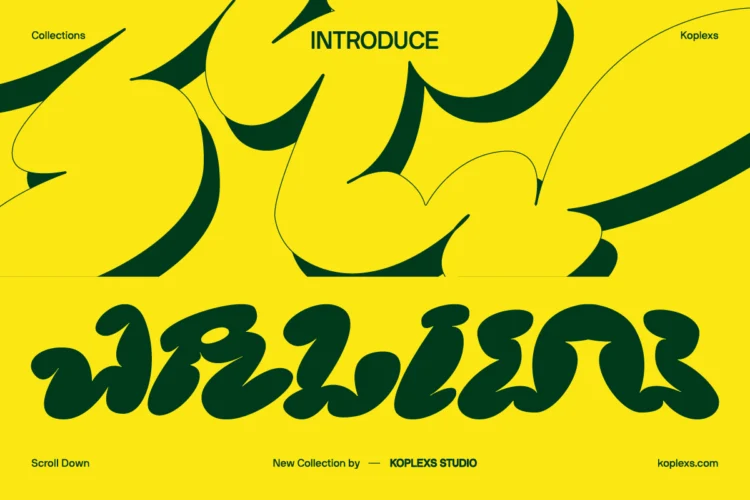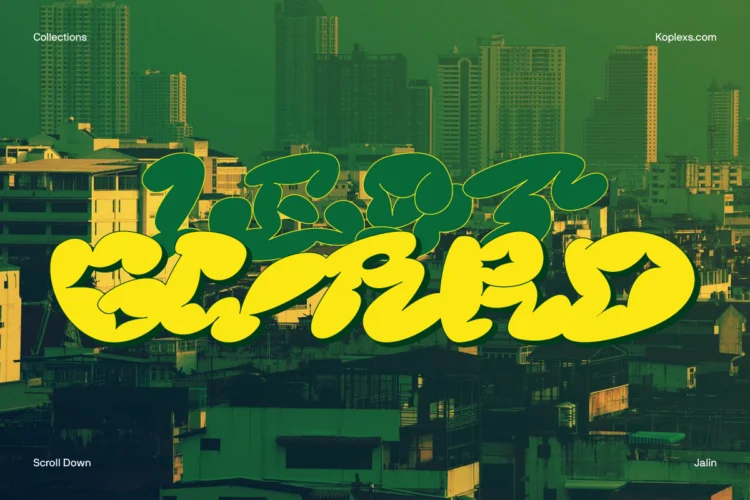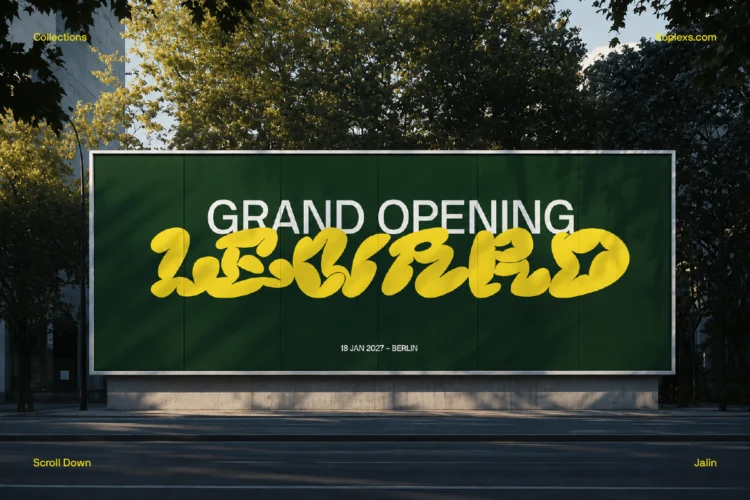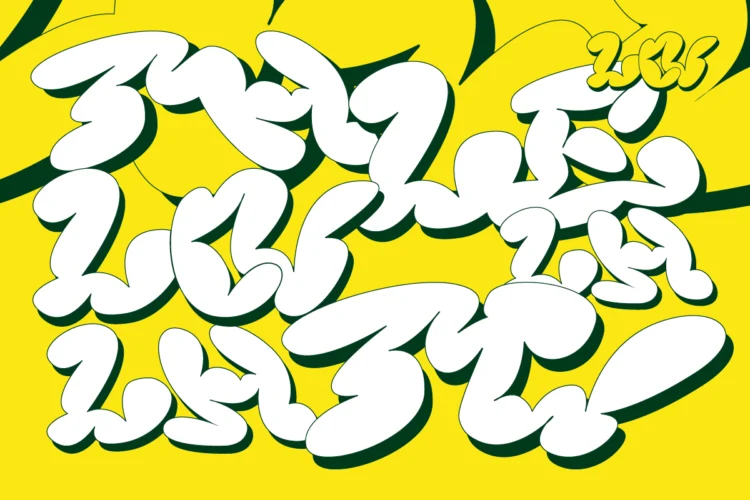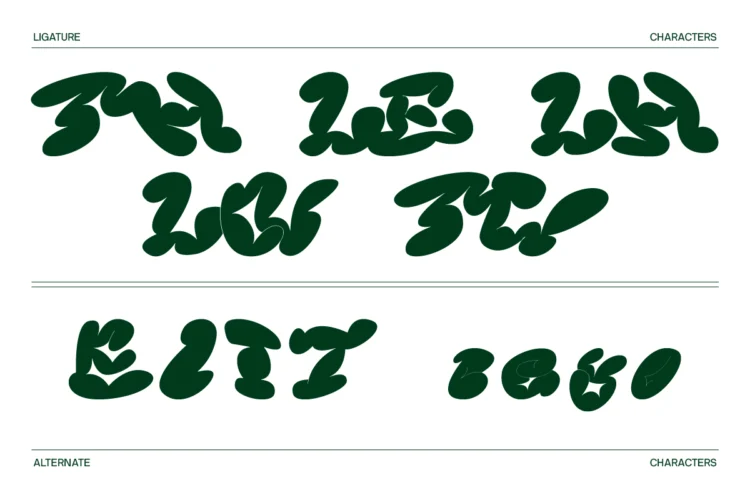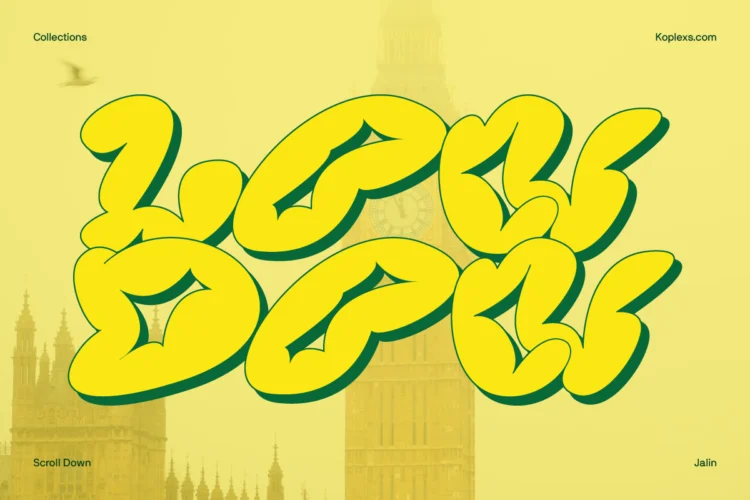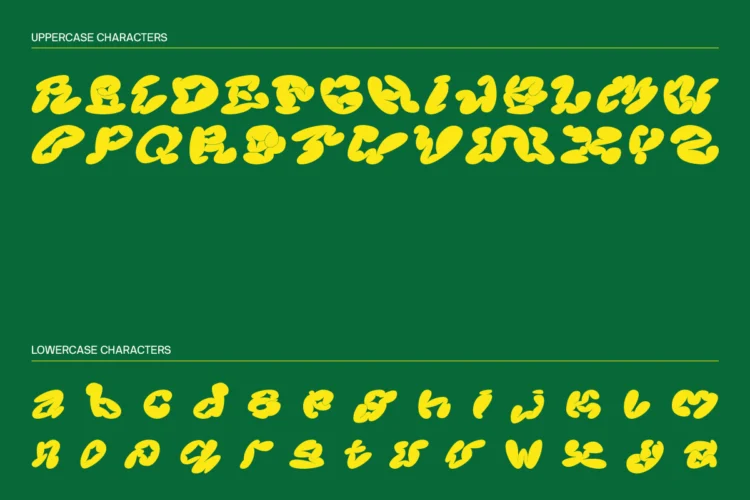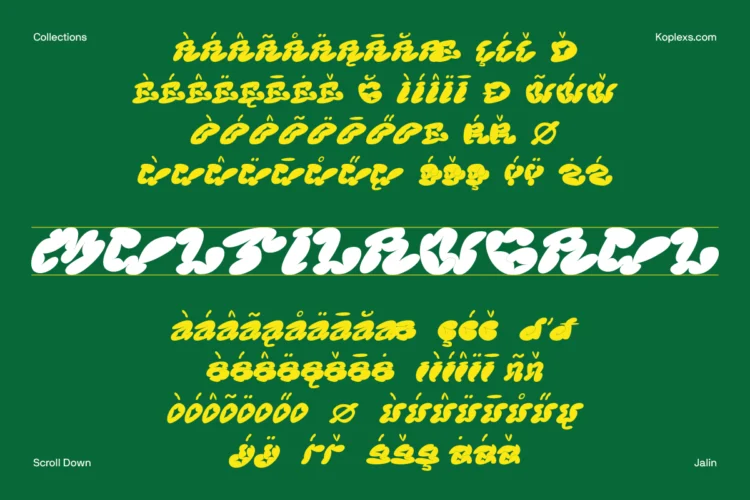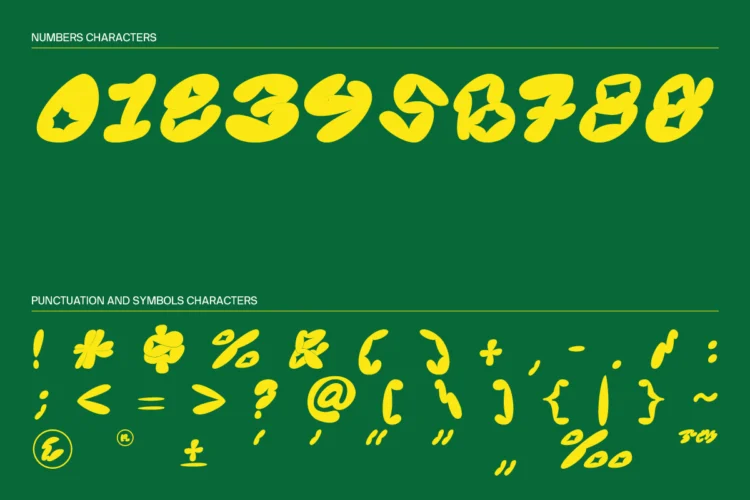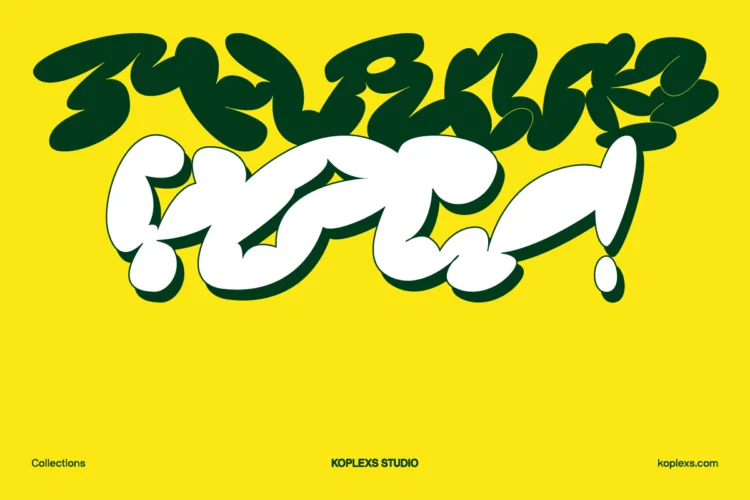
Jaliw Font, Bold Groovy Display Typeface with Playful Ligatures
Jaliw Font is a bold and playful display typeface packed with smooth curves, chunky shapes, and an energetic retro personality. Its unusual letterforms feel expressive and artistic, making every word look like a custom piece of lettering.
Inspired by groovy typography, street culture, music graphics, and experimental editorial design, Jaliw Font works best when you want your message to feel loud, fun, and unforgettable. The rounded characters create a friendly appearance, while the dramatic proportions add movement and strong visual impact.
Jaliw includes creative ligatures, alternate characters, and extended Latin characters to give you more freedom when building unique titles, logos, and typography compositions. Mix the available forms to create lettering that feels fresh, dynamic, and personal.
Perfect For These Design Styles
- Logo and brand identity
- Album covers and music artwork
- Posters and event promotions
- Streetwear and apparel graphics
- Packaging and product labels
- Social media content
- Editorial headlines
- Stickers and merchandise
- Website hero sections
- Creative typography projects
Jaliw Font is especially effective at large sizes, where its bold curves and distinctive details can take center stage. Pair it with a clean sans serif font for body text to create a balanced and modern layout.